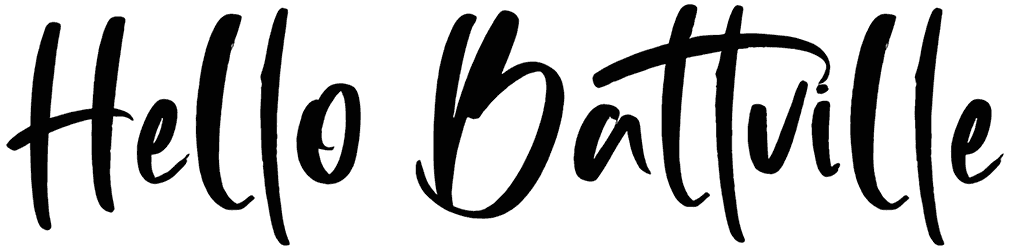
Hello Battville Font
Introducing Hello Battville, a handwritten font that comes with an attractive visual display and additional charms. It can easily spark your audience’s attention and make your design stand out.
This font gives off a natural, friendly vibe and doesn’t support some numbers and punctuation. It will be a good option for book covers, social media, coffee shops, advertisements, and branding materials.